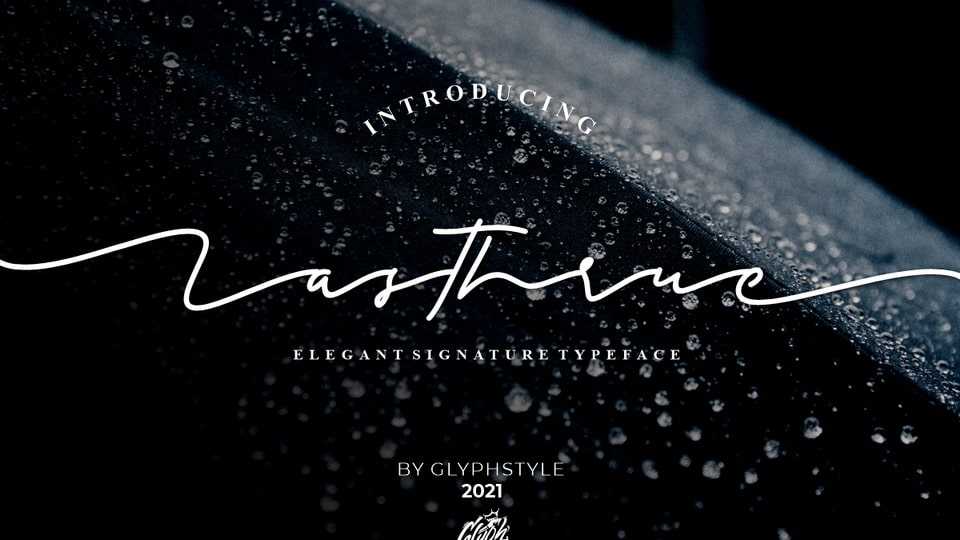
Download Lasthrue font, a signature style monoline typeface with natural curves. Elegant and charming, this signature font is perfect for weddings, watermarks, branding, business cards, product logos, etc.